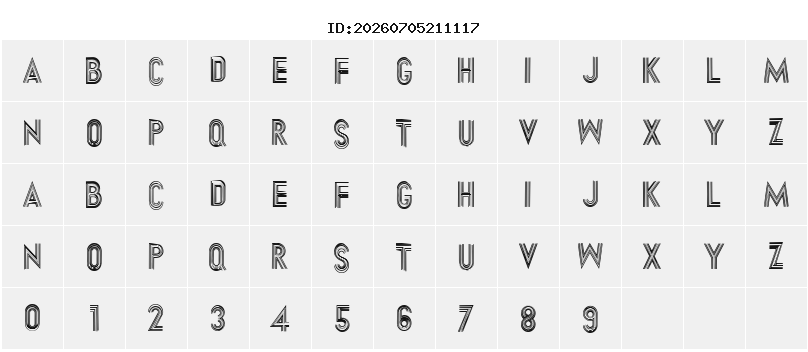
• Font Name: DirtyHatchCaps
• Full Font Name: DirtyHatchCaps
About DirtyHatchCaps.ttf
DirtyHatchCaps.ttf is a modern, elegant sans-serif font designed for ultimate readability and visual harmony. Perfect for branding, headlines, web design, and print materials.